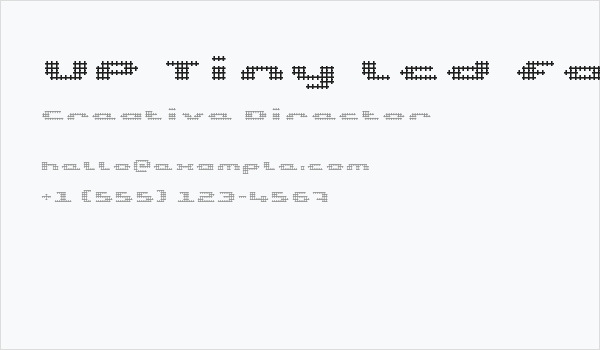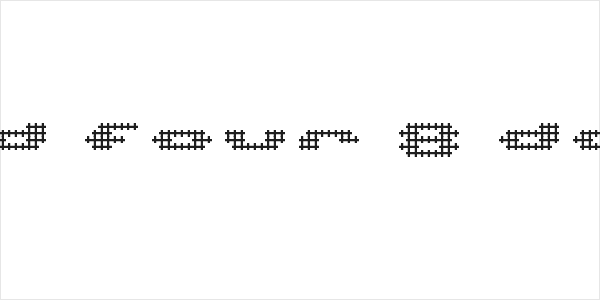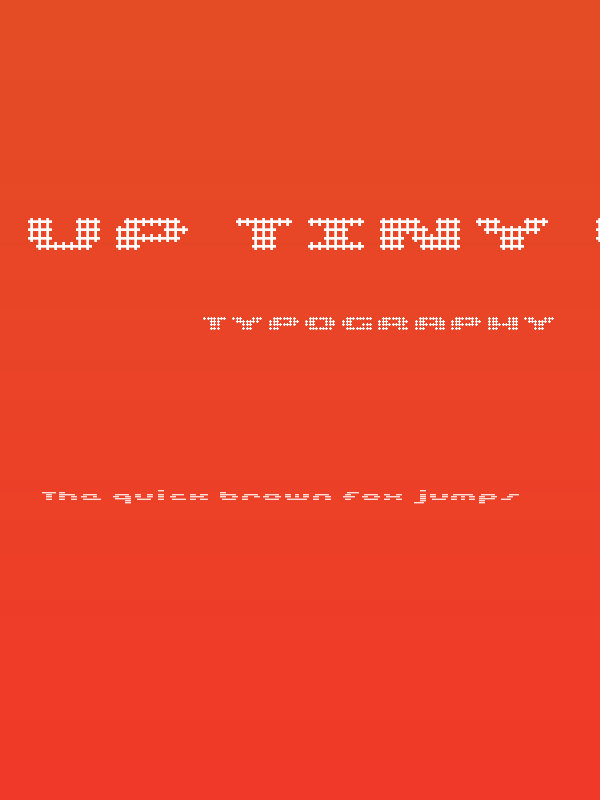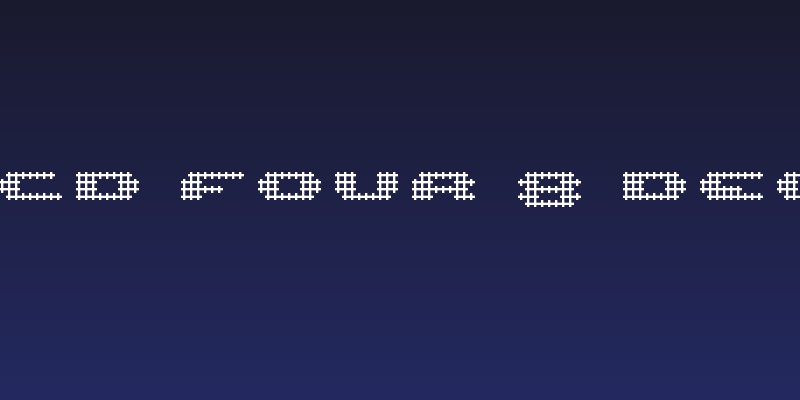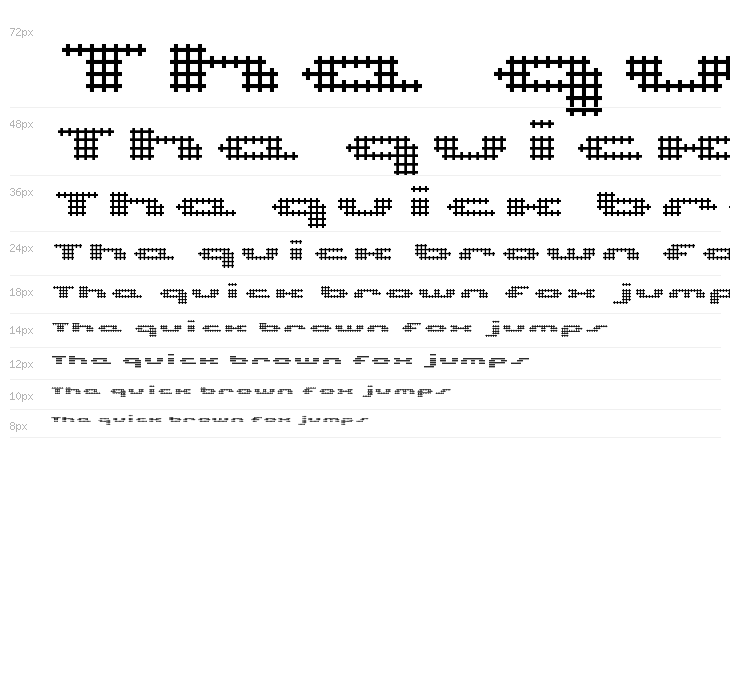
UP Tiny lcd four 8 decoC Light Font
UP Tiny lcd four 8 decoC Light Description
This font features a unique dot matrix style, reminiscent of old LCD displays. Each character is composed of a grid of dots, creating a digital and retro aesthetic. The uniformity of the dots across all characters gives it a cohesive look, while the spacing between the dots allows for readability. The uppercase and lowercase letters maintain a consistent style, with slight variations to distinguish them. Numbers and special characters are also designed in the same dot matrix pattern, ensuring a uniform appearance throughout. This font is ideal for projects that aim to evoke a sense of nostalgia or a digital theme.
| Overall Style | Retro, Digital |
| Proposed Projects | Ideal for retro-themed designs, digital displays, tech-related projects, and creative posters. |